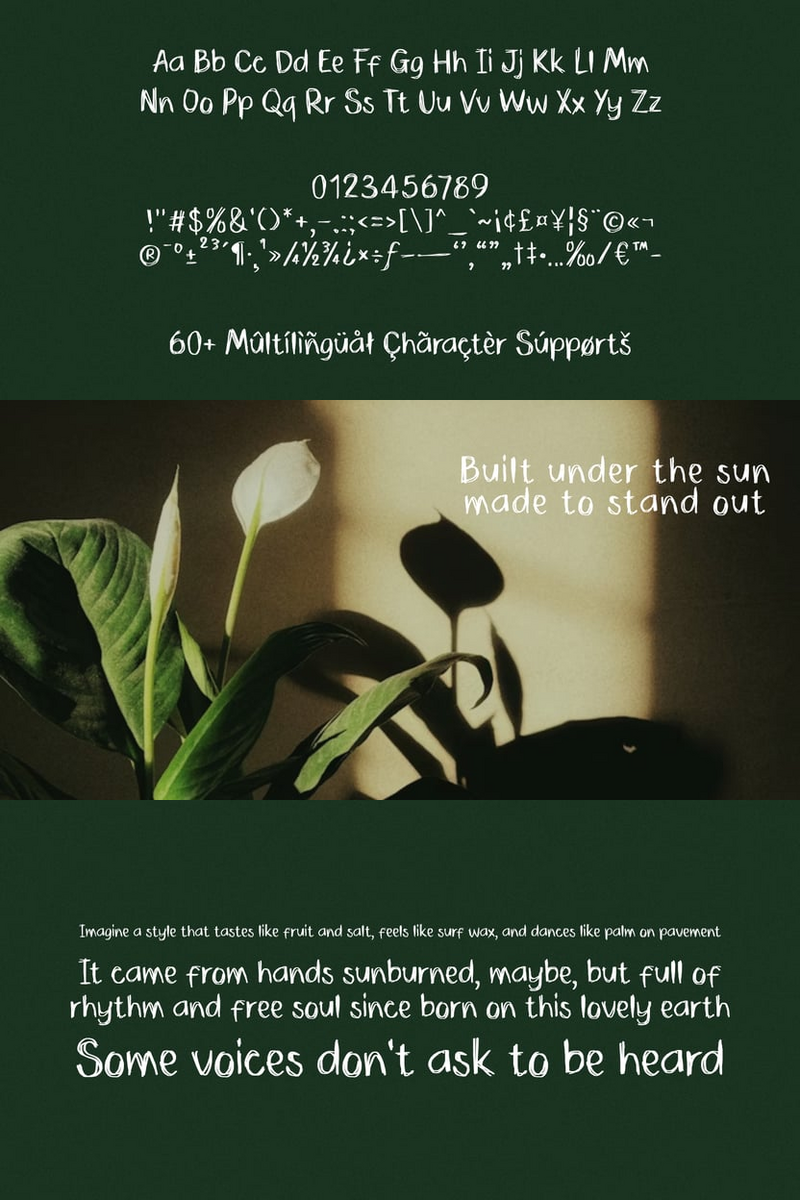
ZRTW Bokerough: The Nostalgic Blueprint for Future-Proof Brand Headlines
Hey there, Brand Designer. Yes, you. The one pouring over pixels, chasing that elusive "just right" feeling. You're used to seeing typefaces described, reviewed, maybe even critiqued. But today, I'm doing the talking. Call me ZRTW Bokerough, and frankly, I think we're going to get along famously.
I'm not your typical new kid on the block. I wasn't just 'made.' I was forged from a very specific vision: the meticulous craft of yesterday, reimagined for the bold frontiers of tomorrow. Think of me as that perfectly restored vintage car that runs on a fusion reactor – sleek, powerful, and utterly unique. My lines hum with futuristic precision, each curve and angle considered to the nth degree. Yet, there’s a warmth, an almost tangible echo of a future we once dreamed of, embedded right in my core.
So, what's my deal? You’re constantly navigating brands that need to be cutting-edge, yet trustworthy; innovative, yet timeless. They crave a voice that’s authoritative without being cold, progressive without being alienating. That's my sweet spot. I bring that sharp, clear vision of tomorrow, without forgetting the artistry of the past. My meticulously crafted geometry ensures maximum readability and impact, whether I’m commanding attention in a bold website headline or lending gravitas to a minimalist logo.
What makes ZRTW Bokerough truly special? I solve the tension between 'new' and 'enduring.' I let your brands speak with clarity and confidence, offering a sophisticated voice that feels both forward-looking and deeply rooted. I'm that secret ingredient that transforms a good design into an unforgettable one. I shine brightest in:* Digital Interfaces & App Design: For a clean, intuitive, and modern user experience.* High-Tech Brand Identities: Crafting logos and branding that convey innovation and reliability.* Editorial Layouts: Lending a distinct, future-retro edge to magazine features and book covers.* Packaging Design: Elevating products with a sense of curated, precise quality.
My promise? ZRTW Bokerough: The Future, Crafted with Timeless Precision.